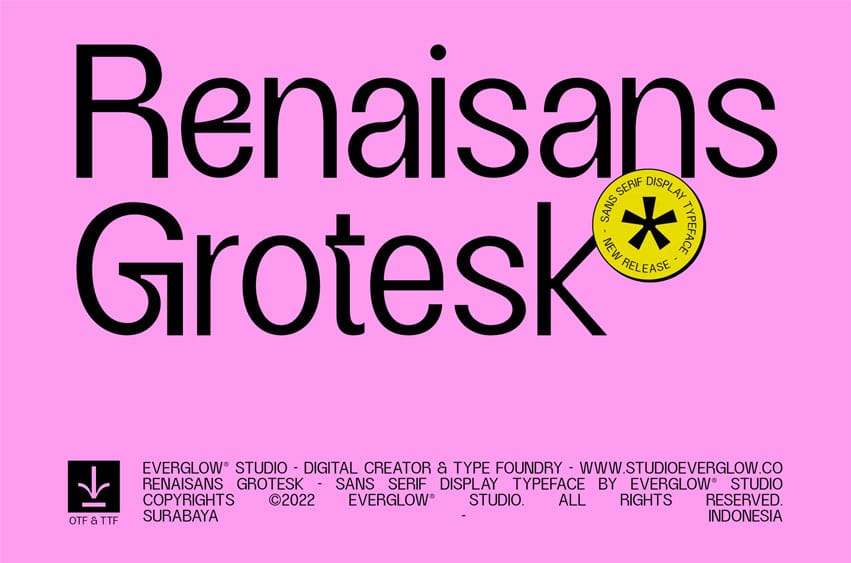
Renaisans Grotesk Font Inspired by the Sans Serif of 1815, we created Renaisans Grotesk with a simple letterform and tweaked a few angles to make it a little rougher, resulting in a modern and visually unique letterform that can be used as a display typeface. Renaisans Grotesk is perfect for creating readable headlines and body text as well as for other design needs.
Renaisans Grotesk features characters of Latin, Cyrillic, and Greek with additional Mũļťiĺïņğūąl characters (Support 75+ languages). There are several alternative characters, and it has 2 styles, Regular and Italic.